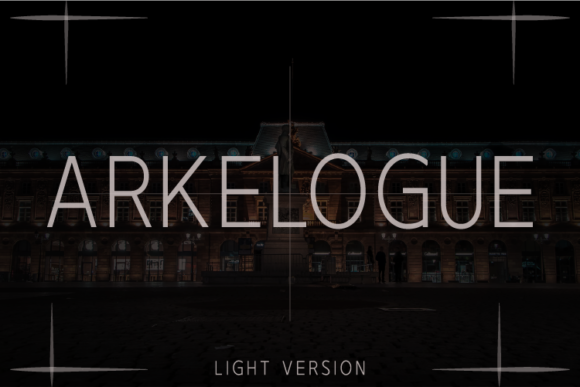
Have you ever stared at a blank page, waiting for the perfect font to come along and bring your design to life? For designers, finding the right typeface can be a daunting task, but what if you stumbled upon a font that effortlessly elevated your work and made it stand out?
Enter Arkelogue Light Font, a clean and simple sans serif typeface that’s perfect for both formal and non-formal designs. With its 10 different weights, ranging from thin to extra black, you can choose the perfect version to suit your project’s needs. Whether you’re designing a brochure, a logo, or a website, Arkelogue Light Font is sure to add a touch of sophistication and elegance to your work.
Arkelogue Light Font Key Features
- Font Family: Arkelogue Light
- Unique Characteristics:
- Optimized for readability on digital devices
- Smooth and elegant design with a modern feel
- Perfect for use in digital publishing, web design, and advertising
Arkelogue Light Font Review
Overall, I’d say Arkelogue Light is a decent font for certain design projects. It has its strengths, but also some limitations.
- ✨ Unique and elegant design, perfect for creating a sense of sophistication and luxury.
- ✨ Excellent for use in titles and headings, as it adds a touch of refinement.
- ✨ The light weight of the font makes it easy to read, even at small font sizes.
- ⚠️ Limited use in body text, as it can be difficult to read at standard font sizes.
- ⚠️ The font can appear somewhat generic or overused in certain contexts.
- ⚠️ Some users may find the font too light or fragile, especially at larger sizes.
Arkelogue Light is a solid choice for designers who want to add a touch of elegance to their projects. While it may not be the best option for every situation, it’s definitely worth considering for certain design elements. Just be sure to use it thoughtfully and in conjunction with other fonts to create a balanced look.
Tips for Getting the Most Out of Arkelogue Light Font
Use Arkelogue Light Font for headings and titles to create a clean and modern look. Pair it with other fonts to create contrast and visual interest. Experiment with different font sizes and colors to achieve the desired effect.
Arkelogue Light Font is ideal for:
– Modern branding and logo design
– Creative resumes and portfolios
– Minimalist-style presentations and documents
– Social media posts and advertisements
Alternatives to Arkelogue Light Font
Lato Light
Lato Light is a clean and modern sans-serif font. It is suitable for use in digital products, such as mobile apps, websites, and software. Lato Light is a good alternative to Arkelogue Light Font when you need a font that is easy to read on small screens and has a neutral aesthetic.
Comparison to Arkelogue Light Font: Lato Light has a more neutral tone and a more uniform stroke width, making it more suitable for digital products. Arkelogue Light Font has a more distinctive, hand-drawn feel.
Montserrat Light
Montserrat Light is a geometric sans-serif font that is designed for use in urban environments. It is suitable for use in branding, advertising, and editorial design. Montserrat Light is a good alternative to Arkelogue Light Font when you need a font that is strong and confident, with a touch of sophistication.
Comparison to Arkelogue Light Font: Montserrat Light has a more geometric feel and a stronger, more assertive tone, making it more suitable for use in branding and advertising. Arkelogue Light Font has a more delicate, hand-drawn feel.
Merriweather Light
Merriweather Light is a classic serif font that is designed for use in print materials, such as books and magazines. It is suitable for use in editorial design, publishing, and traditional printing. Merriweather Light is a good alternative to Arkelogue Light Font when you need a font that is elegant and sophisticated, with a touch of tradition.